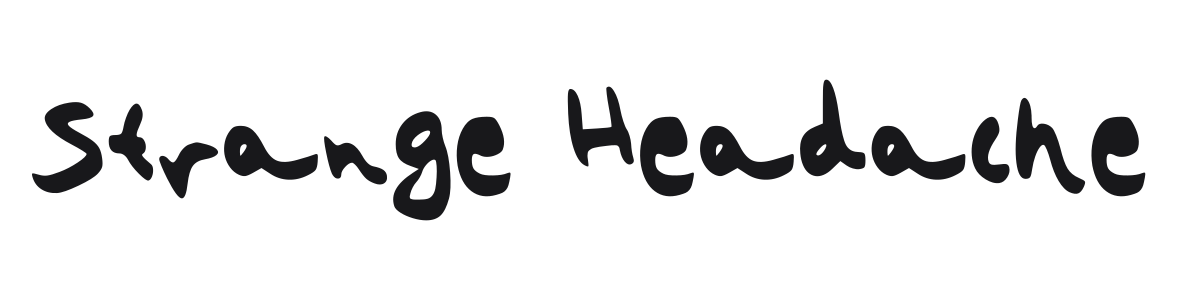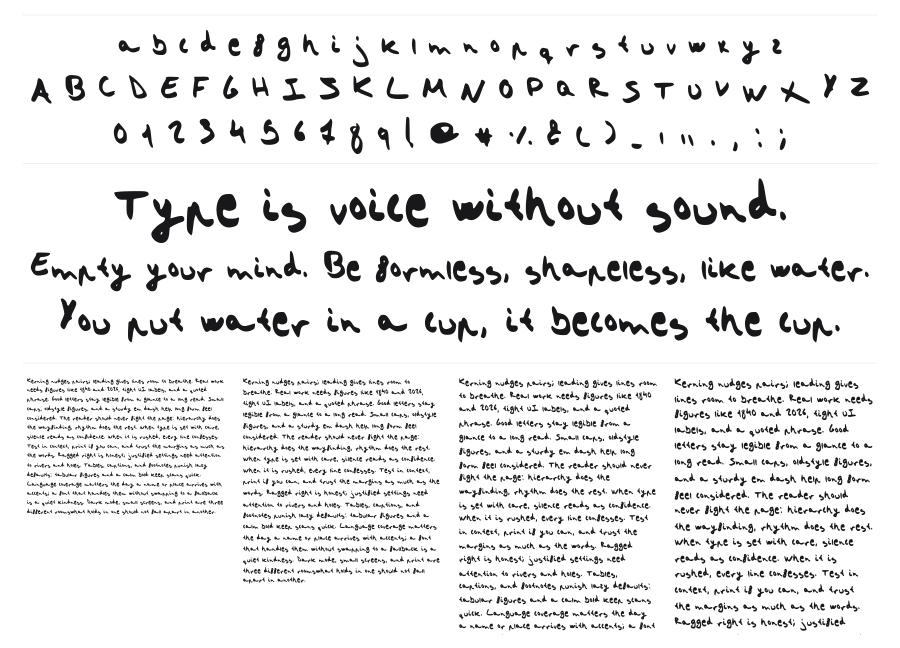
Strange Headache
by Guillermo Vela Garcia
Strange Headache is a chunky handwritten casual script with heavy, rounded strokes and a deliberately wobbly rhythm. Created using FontCapture in 2009, it carries the raw energy of a quick marker sketch, with letters that bob and tilt across the baseline. It works best at large sizes where the imperfect, hand-drawn quality reads as character rather than noise.